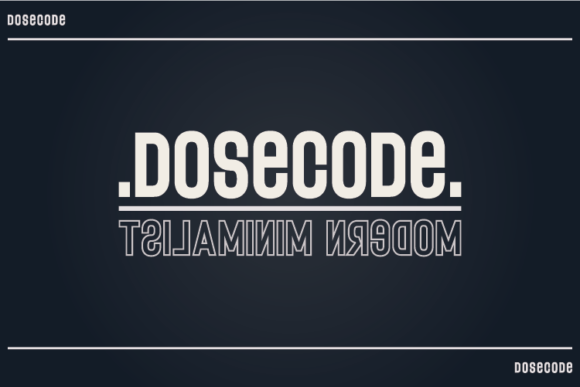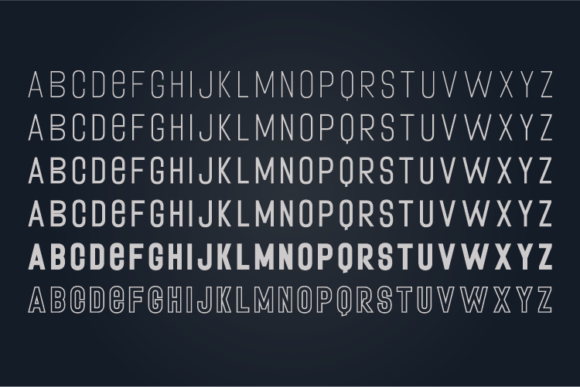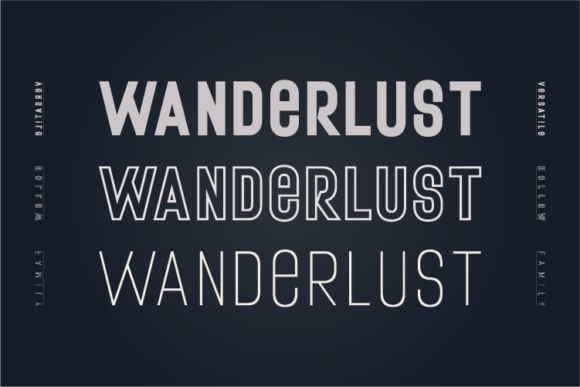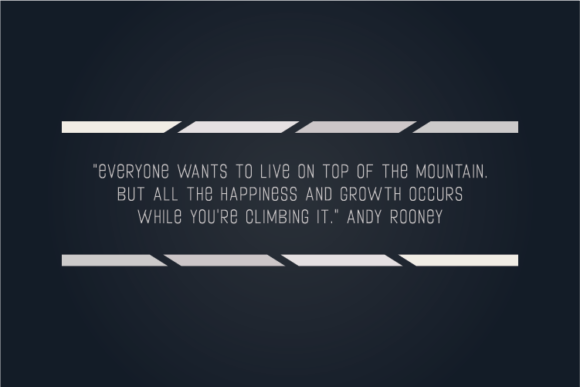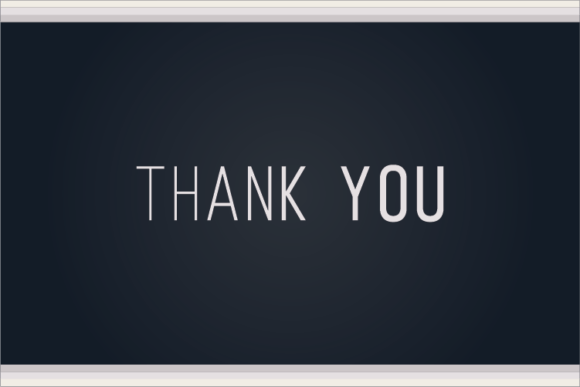
Introduction to Prescode Versatile Font
Imagine you’re working on a creative project and you’re stuck on the perfect font. The words just aren’t flowing, and you can’t seem to find the right tone. This is a familiar feeling for many designers, but what if we told you that there’s a font that could change everything? Enter the Prescode Versatile Font, a modern sans serif font that’s perfect for bringing your design to life.
This versatile font is more than just a design resource – it’s a game-changer. With its elegant, classy, and modern style, it’s easy to see why Prescode Versatile Font is quickly becoming a favorite among designers. Whether you’re working on a free download or a high-end creative project, this font is sure to impress. Plus, with its transparent background, it’s easy to customize to fit your needs.
So why is Prescode Versatile Font so valuable for designers? For one, it’s incredibly easy to use, making it perfect for projects of all sizes. Whether you’re working on a logo, a food menu, or an album cover, this font is sure to bring a touch of sophistication and style to your design.
Key Features of Prescode Versatile Font
- High-quality design resource suitable for various creative projects, including digital art, graphic design, and web development.
- Unique characteristics, such as its versatile style and clean lines, make it an ideal choice for designers seeking a modern and sleek aesthetic.
Honest Review: Prescode Versatile Font
As a designer, I’m always on the lookout for high-quality design resources to elevate my creative projects. Recently, I had the chance to try out the Prescode Versatile Font, and I’m excited to share my honest review.
What works well: ✨ The Prescode Versatile Font has a sleek and modern design that’s perfect for a wide range of creative projects. The font is highly customizable, allowing you to adjust the size, color, and style to fit your needs. The transparent background feature is also a huge plus, making it easy to layer and composite your designs.
- High-quality design that’s perfect for modern projects
Overall, I’m impressed with the Prescode Versatile Font. It’s a great design resource that’s perfect for a wide range of creative projects. While there are some limitations, the benefits far outweigh the drawbacks, making it a great addition to any designer’s toolkit.
Use the Prescode Versatile Font on a transparent background for a sleek and modern look.
Common Use Cases for Prescode Versatile Font
The Prescode Versatile Font is ideal for various creative projects, including:
Brochures and flyers
Business cards and letterheads
Posters and social media graphics
Website design and content creation